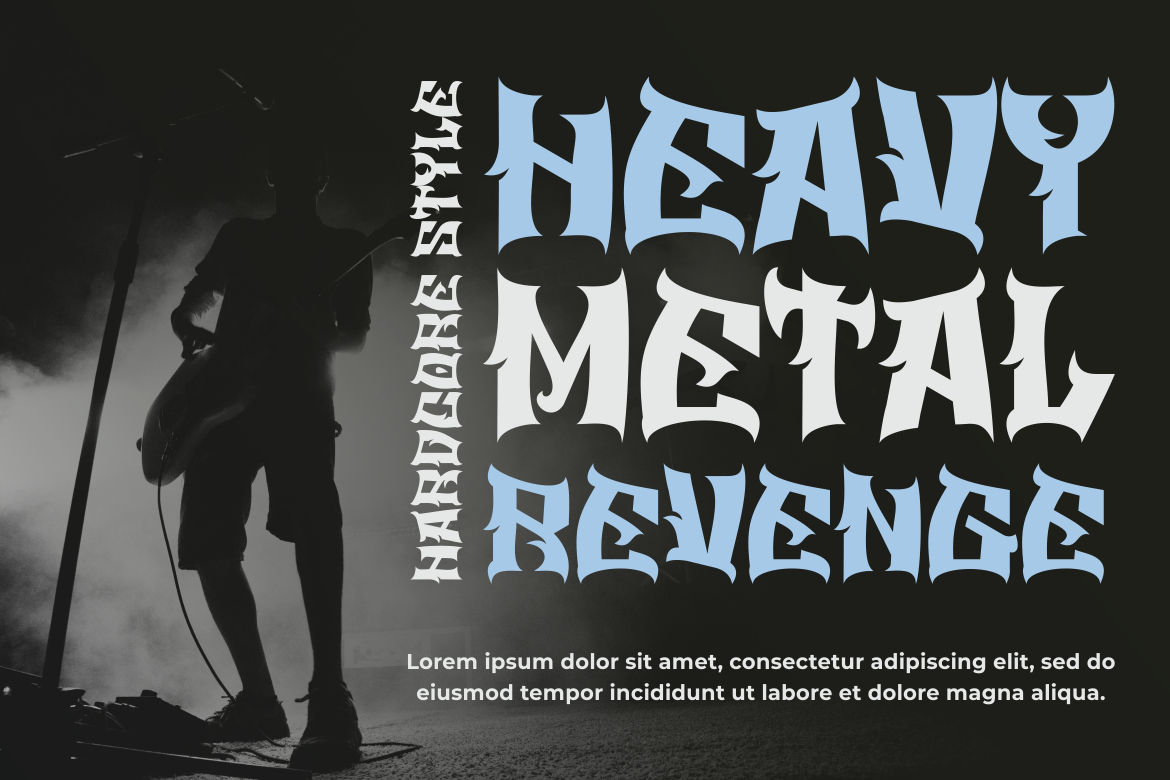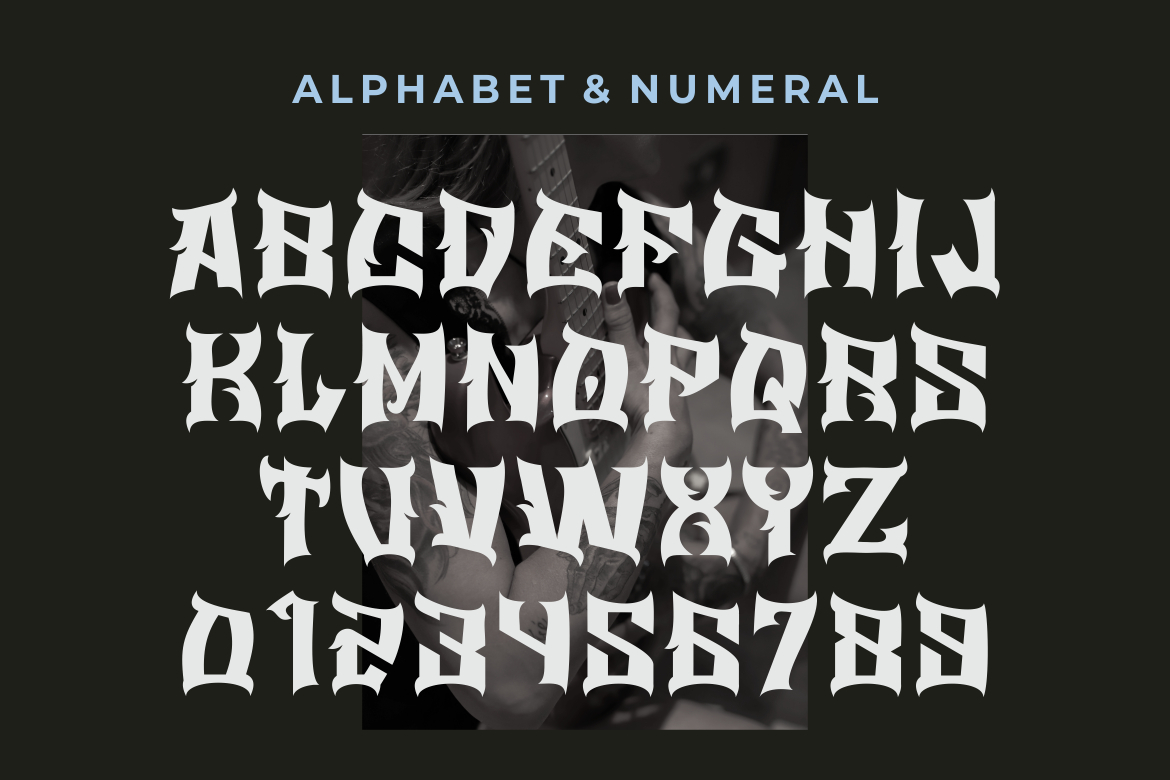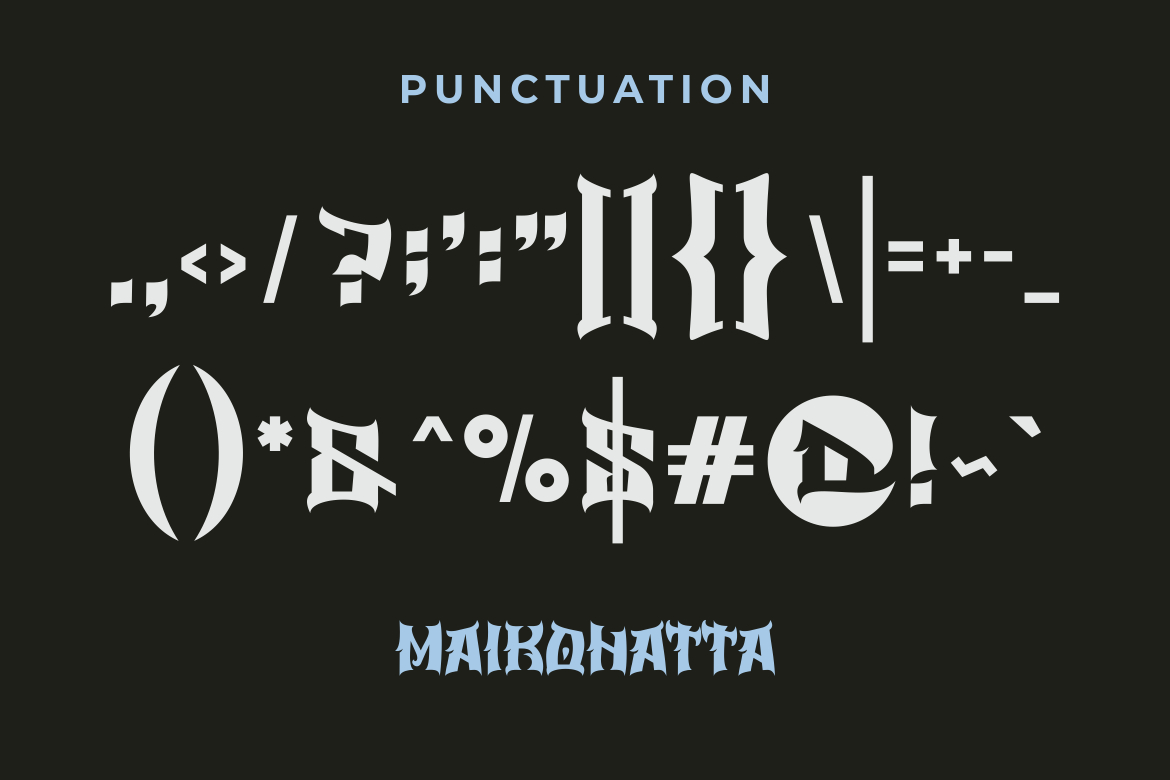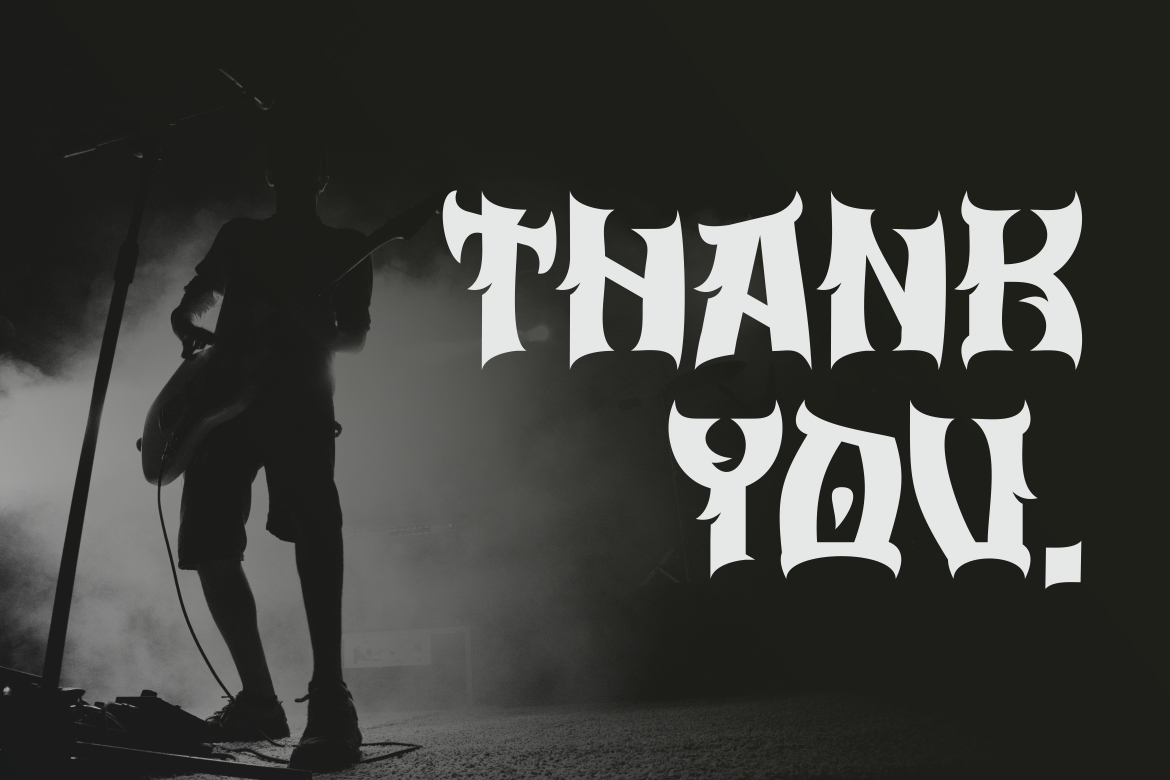
Daruma Font
About Daruma Font
**DARUMA FONT** Modern Blackletter Font
**DARUMA FONT** is a distinct, highly detailed, and Horror Metal font. It would make a great choice for exquisite retro-urban designs, tattoo business branding, logos, vintage designs, and more.